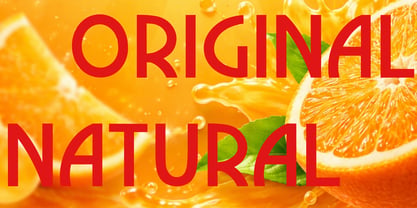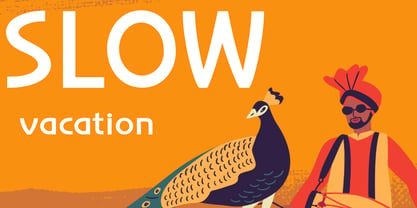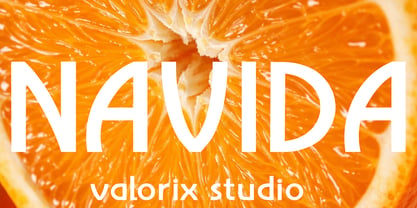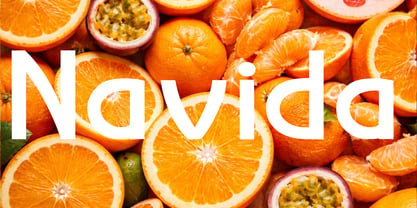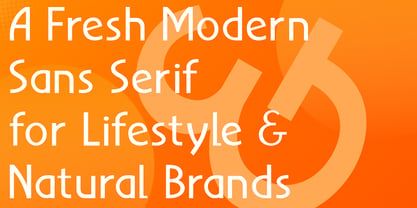
Navida
by Valorix Studio
The Navida Font Family was designed by Erick Rismawan Valorix and published by Valorix Studio. Navida contains 3 styles and family package options. More about this family
Navida is a fresh modern sans serif font crafted for lifestyle and natural brands. Designed with clean lines and soft curves, Navida brings a perfect balance between clarity and friendliness, making it ideal for designs that want to feel both professional and approachable. Inspired by the essence of freshness and simplicity, Navida delivers a bright and contemporary look that works beautifully across a wide range of creative projects. From branding and packaging to social media and editorial layouts, this font adapts effortlessly while maintaining its distinctive charm. Navida is especially suitable for: Lifestyle and wellness brands Food and beverage packaging Skincare and beauty products Modern branding and logo design Social media and digital content Key Features: Clean and modern sans serif style Friendly and approachable character Versatile for various design needs Carefully balanced proportions for readability Whether you’re creating a vibrant brand identity or a clean modern layout, Navida adds a fresh and confident voice to your design.
Designers: Erick Rismawan Valorix
Foundry: Valorix Studio
Valorix Studio is an independent type foundry specializing in creating display and decorative typefaces with a modern and distinctive character. We craft a wide range of fonts designed to emphasize strong visual identity and creative expression. Each typeface is developed with attention to detail, balance, and aesthetic value—making it an ideal choice for branding, posters, packaging, and other creative projects that demand a bold and unique touch.